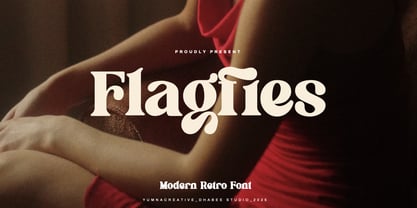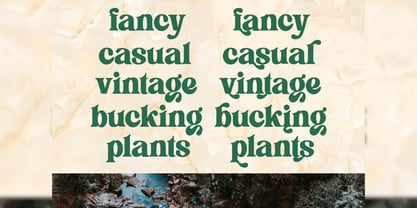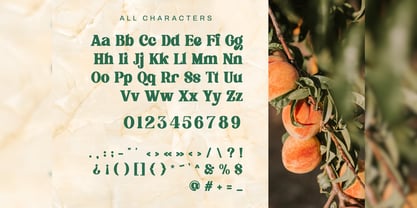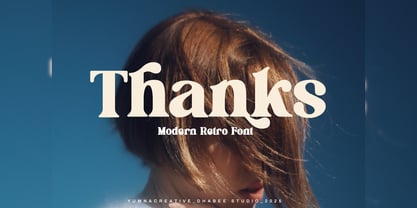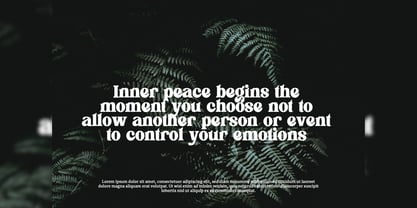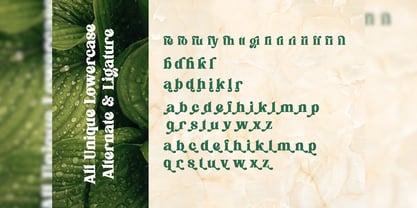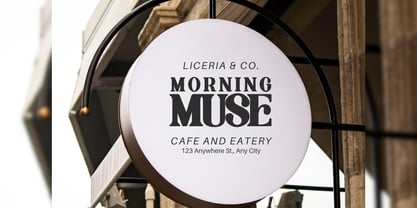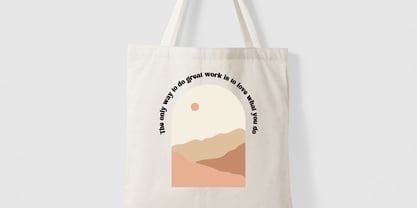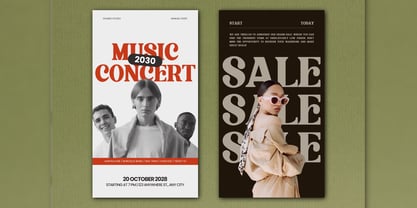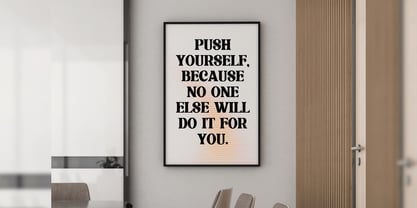
Flagfies
by Yumnacreative
The Flagfies Font Family was designed by Dhimas Habibie and published by Yumnacreative. Flagfies contains 1 styles. More about this family
Introducing Flagfies - Modern Retro Font
Flagfies – Modern Retro Font is a Bold vintage style serif font with strong character and soft features. modern and classic serif font with a clear and bold look. It’s a very versatile font that works great in large.
Flagfies was built with stylistic Alternate and Ligature makes your project will be awesome! Perfect for editorial projects, Logo design, web font, clothing branding, product packaging, magazine headers, or simply as a stylish text overlay to any background image.
FEATURES
- Uppercase and Lowercase letters
- Numbering and Punctuations
- Multilingual Supports
Designers: Dhimas Habibie
Foundry: Yumnacreative